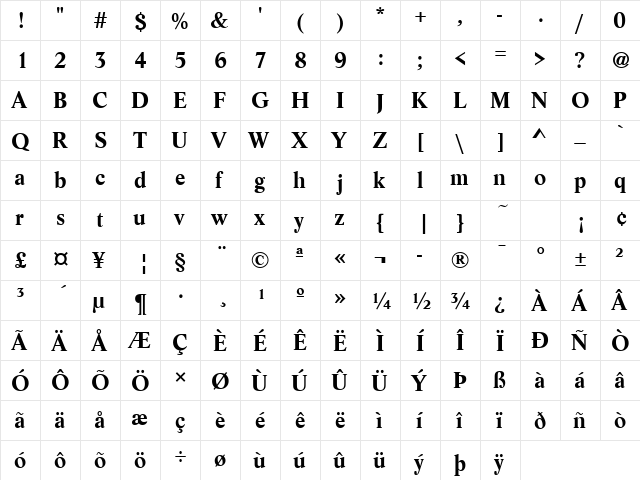
LifeT Bold
Design Context for LifeT Typeface
LifeT is a composed and adaptable typeface that performs quietly and consistently across a wide range of design contexts. The heavy weight commands attention and anchors typographic hierarchies.